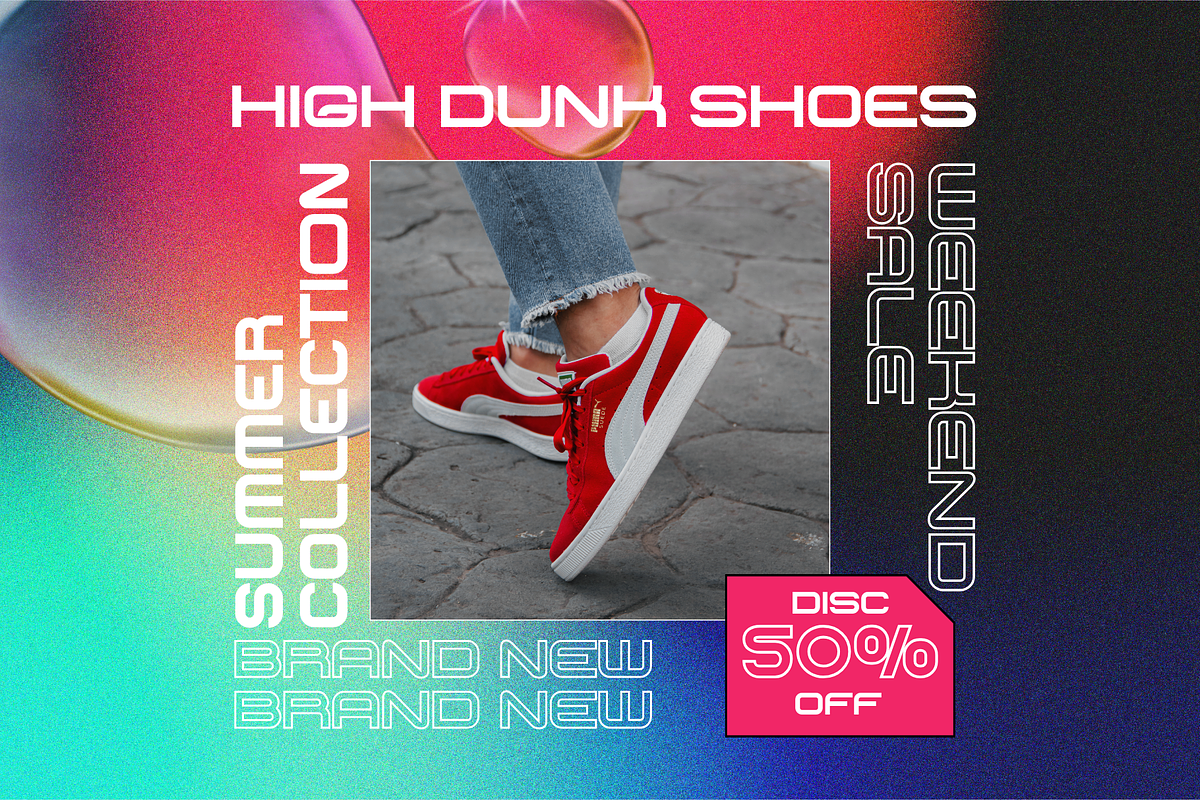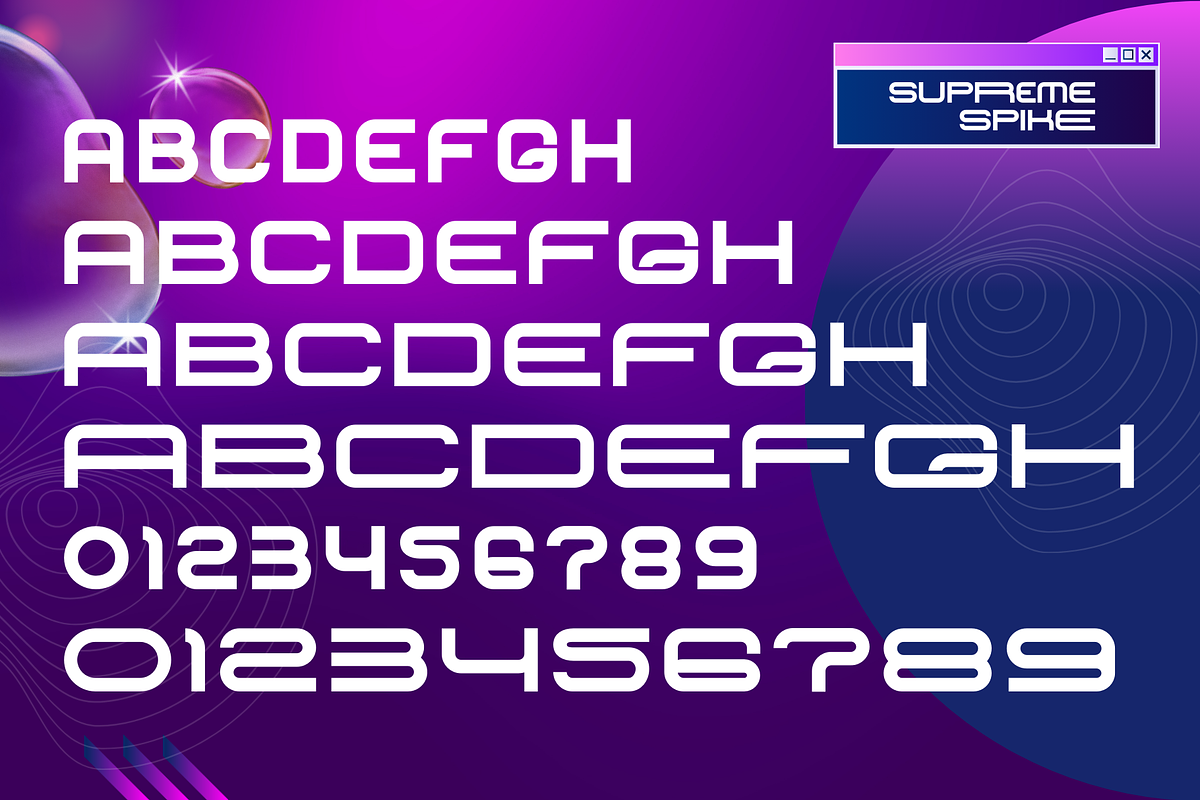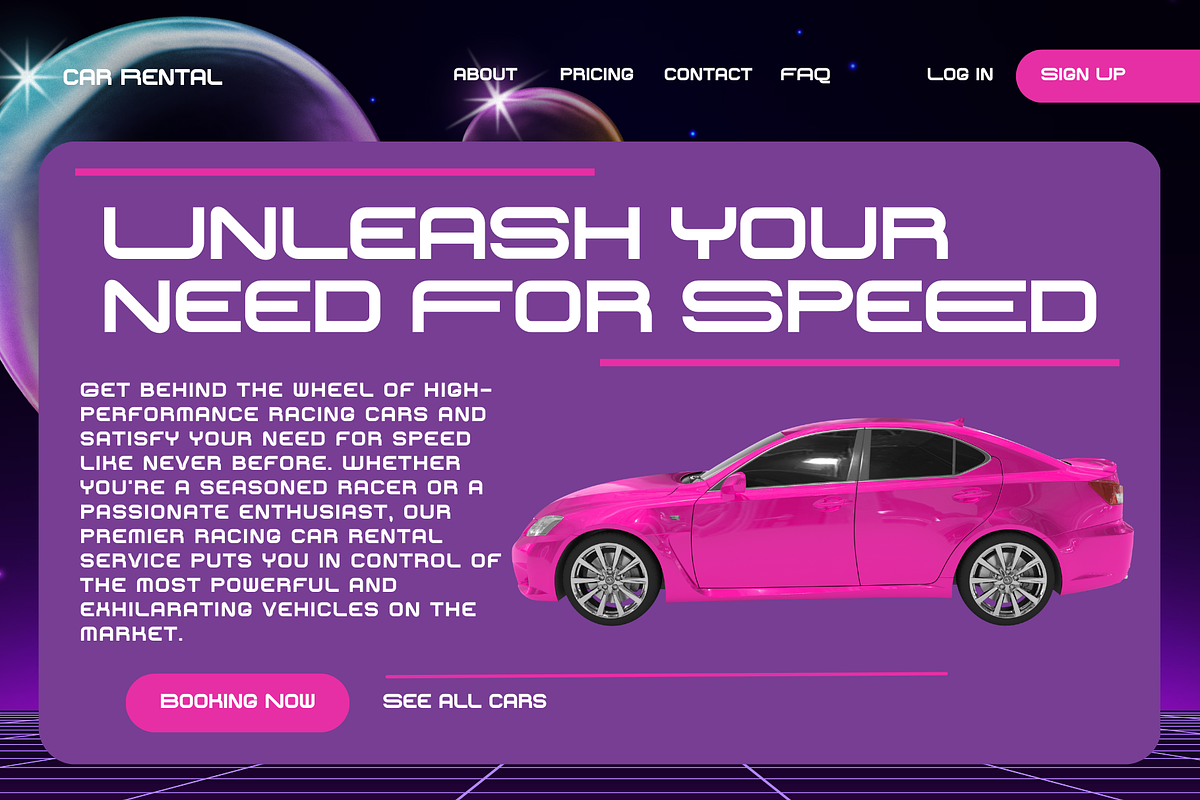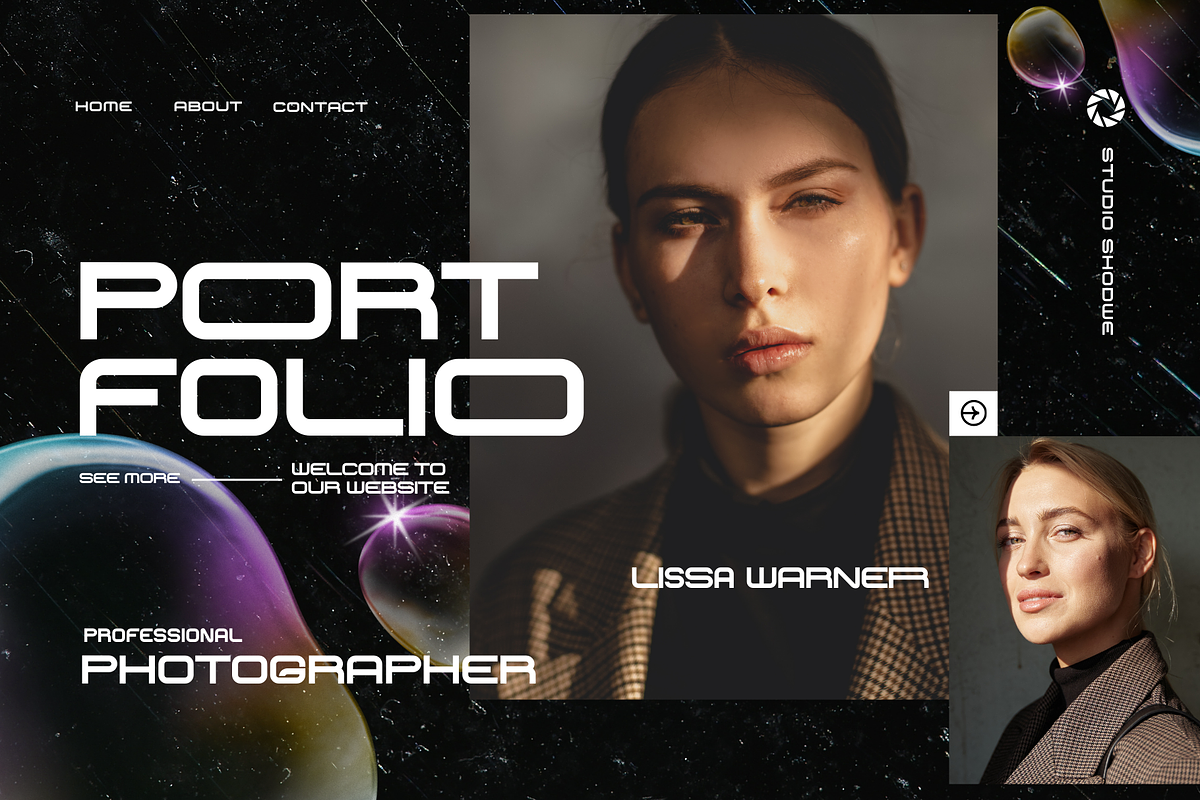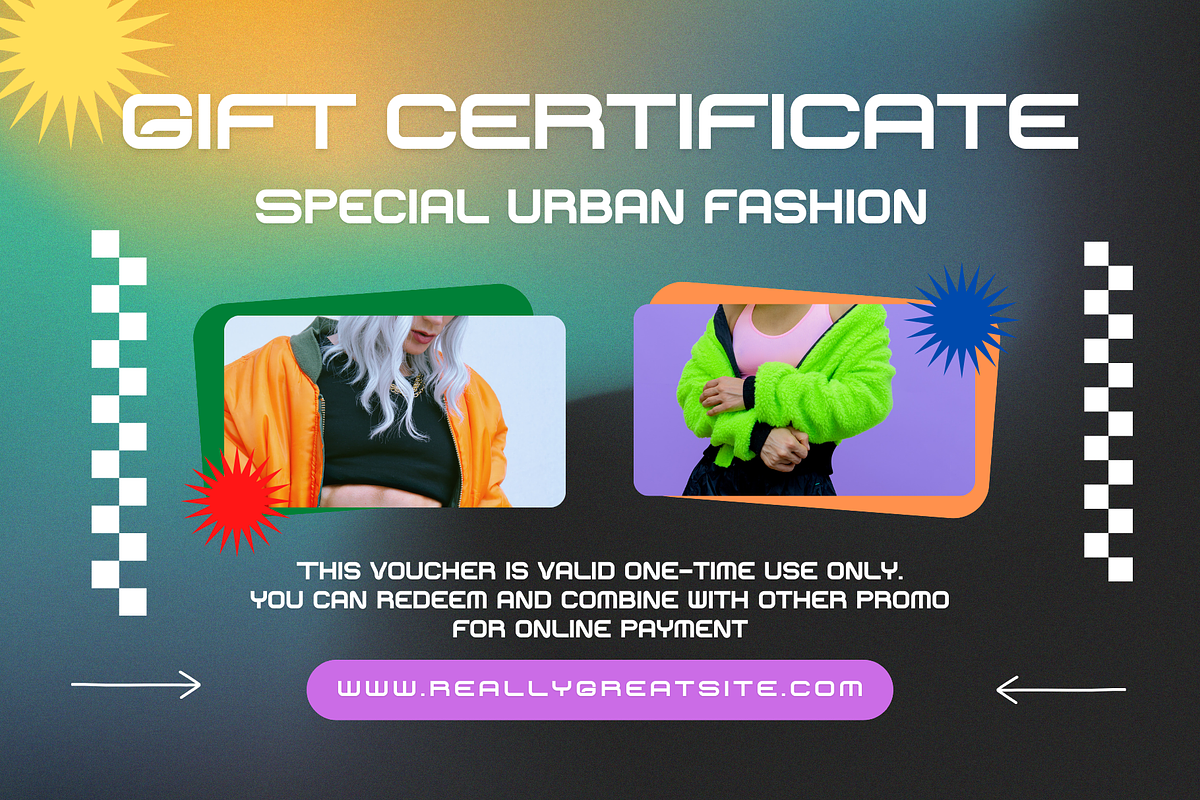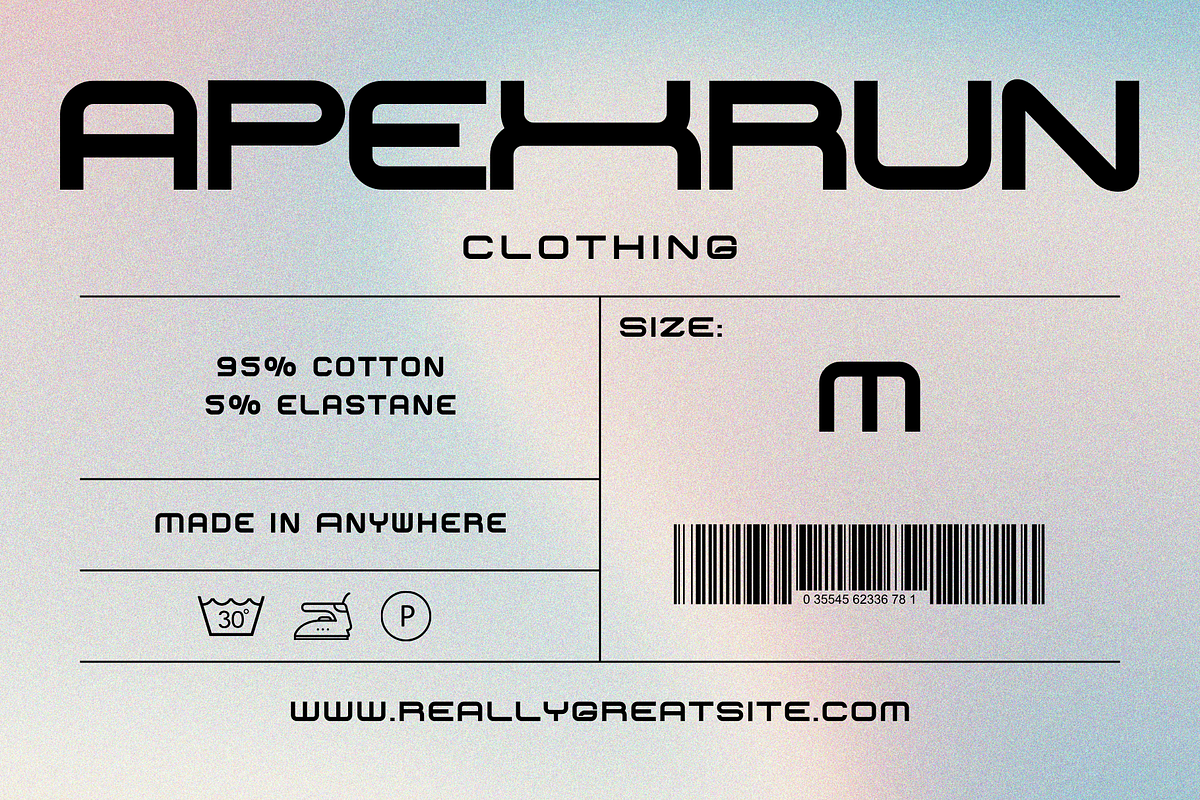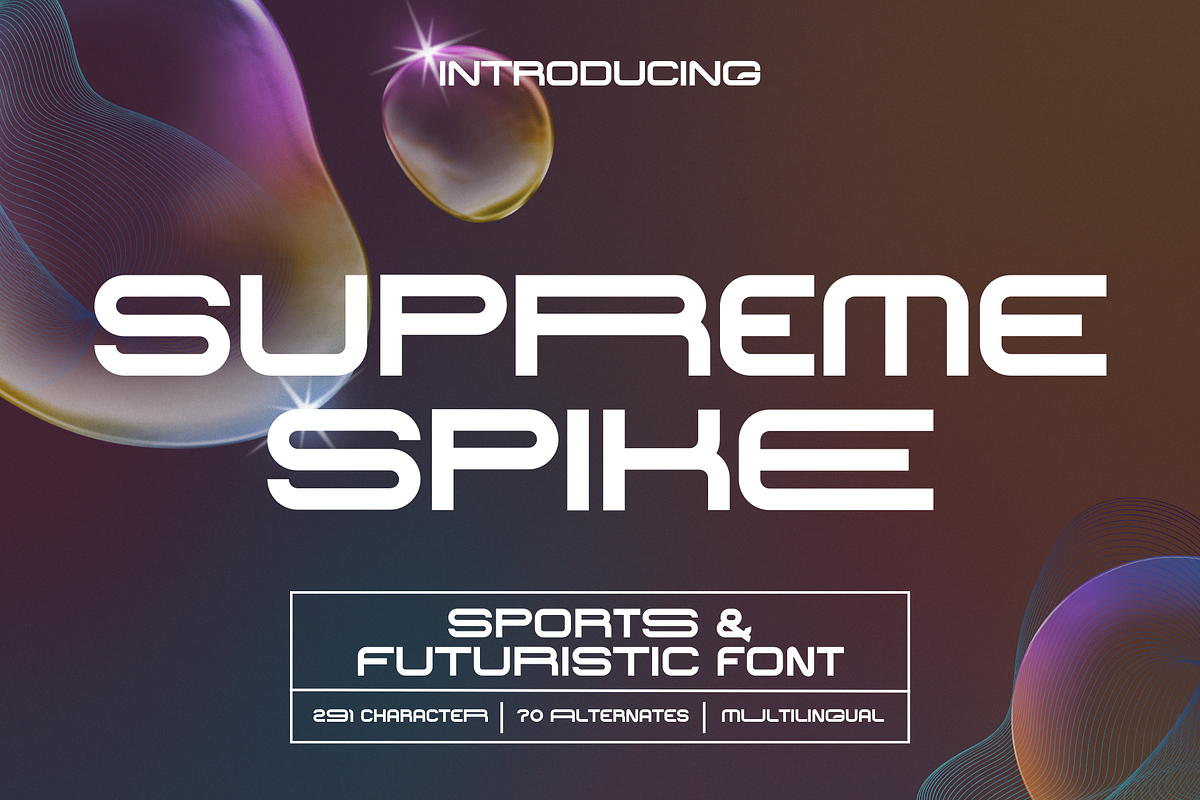
Supreme Spike - Sports & Futuristic
Discover the perfect balance of sporty energy and modern design with Supreme Spike! This sans-serif font delivers a clean, contemporary look with a bold presence. While it comes in a single primary style, Supreme Spike features 4 extended letter alternates to add a unique creative flair to any design.
Why choose Supreme Spike?
- Flexible Letter Alternates: 4 extended letter options bring variety and character to your designs.
- Versatile for Any Project: Perfect for logos, posters, sports branding, merchandise, and tech-themed presentations.
- Sporty Meets Modern: A clean, dynamic sans-serif style that works beautifully across creative projects.
Take your designs to the next level with Supreme Spike! This font is crafted to make a bold impact and leave a lasting impression.